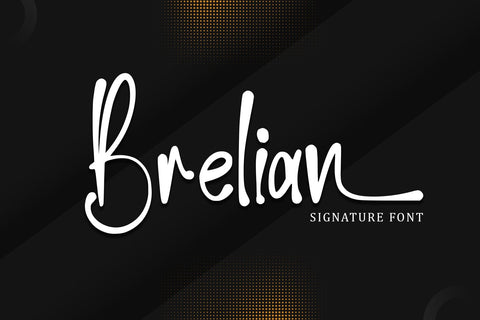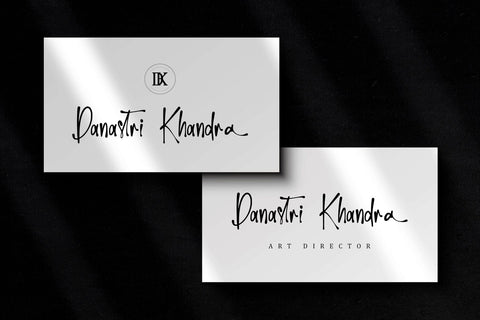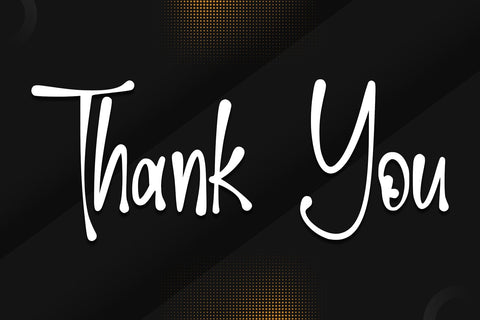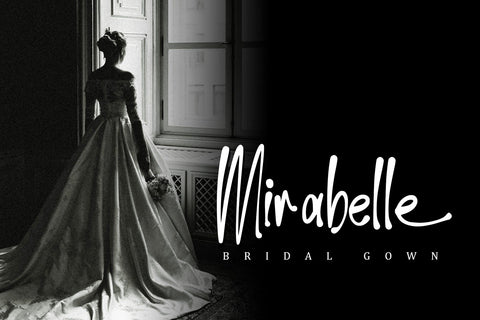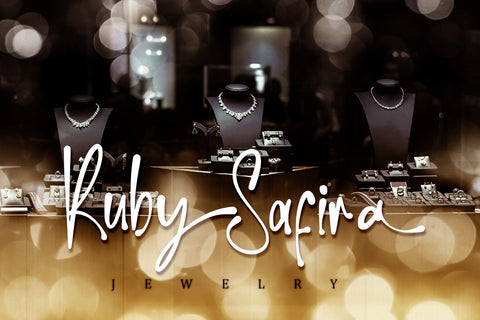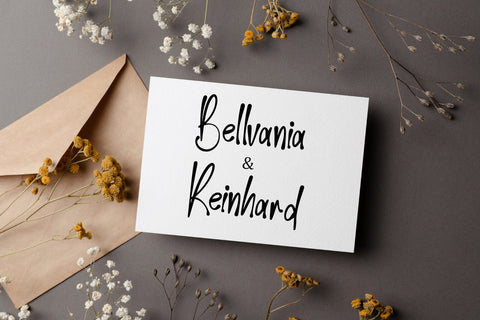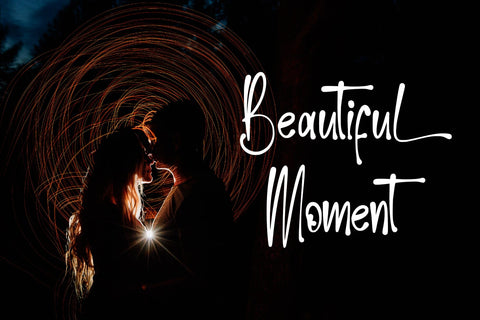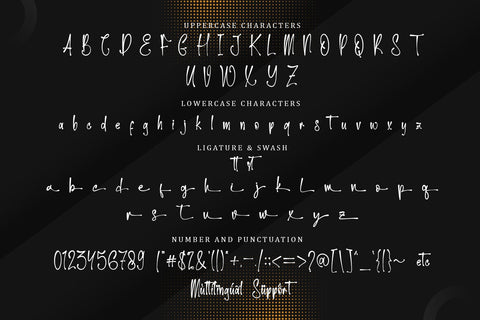
Brelian - Handwritten Font
Brelian is a stylish and fresh handwritten typeface that exudes elegance and charm. With its flowing strokes and contemporary vibe, it adds a touch of sophistication to any design project. Perfect for invitations, branding, logos, and editorial designs seeking a modern yet personal feel.